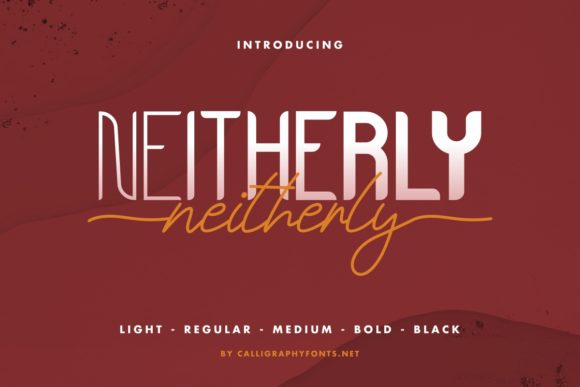
Introducing Neitherly Font - The Exquisite Duo Font for a Signature Style
Journey into the world of elegance and sophistication with Neitherly Font, a captivating duo font that combines the grace of a delicate script with the stability of a modern sans serif. Crafted by the renowned CalligraphyFonts, Neitherly is meticulously designed to elevate your digital creations and leave a lasting impression.
Unveil the Beauty of Your Words with Neitherly
Neitherly Font is more than just a font; it's an artistic expression that transforms your words into captivating visual masterpieces. Its graceful curves and flowing lines dance across the page, evoking a sense of charm and elegance. Whether you're writing a heartfelt letter, designing a stunning logo, or crafting social media posts that captivate, Neitherly adds a touch of timeless beauty to every project.
A Versatile Font for Every Occasion
Neitherly Font is not just visually stunning; it's also incredibly versatile. Its dual nature allows you to seamlessly blend the script and sans serif fonts to create captivating designs that resonate with your audience. The delicate script is perfect for adding a personal touch to wedding invitations, handwritten notes, and heartfelt messages. The modern sans serif, on the other hand, provides a solid foundation for headlines, website copy, and branding materials, ensuring your message is clear and impactful.
Elevate Your Designs with Neitherly
With Neitherly Font, you have a powerful tool to elevate your designs and make a statement that speaks volumes. Its luxurious touch adds a touch of refinement to any project, whether you're a graphic designer working on a captivating logo, a blogger crafting visually appealing content, or an entrepreneur building a brand that exudes sophistication. Let Neitherly be your creative companion as you turn your vision into reality.
Capture Hearts with Neitherly Font
Neitherly Font has a way of capturing hearts and leaving a lasting impression. Its delicate strokes and elegant curves evoke a sense of nostalgia and romance, making it the perfect choice for creating designs that resonate on a deeper level. Whether you're designing a wedding invitation that reflects the love and joy of two souls uniting, or crafting social media posts that evoke a sense of wanderlust, Neitherly adds a touch of magic to every project.